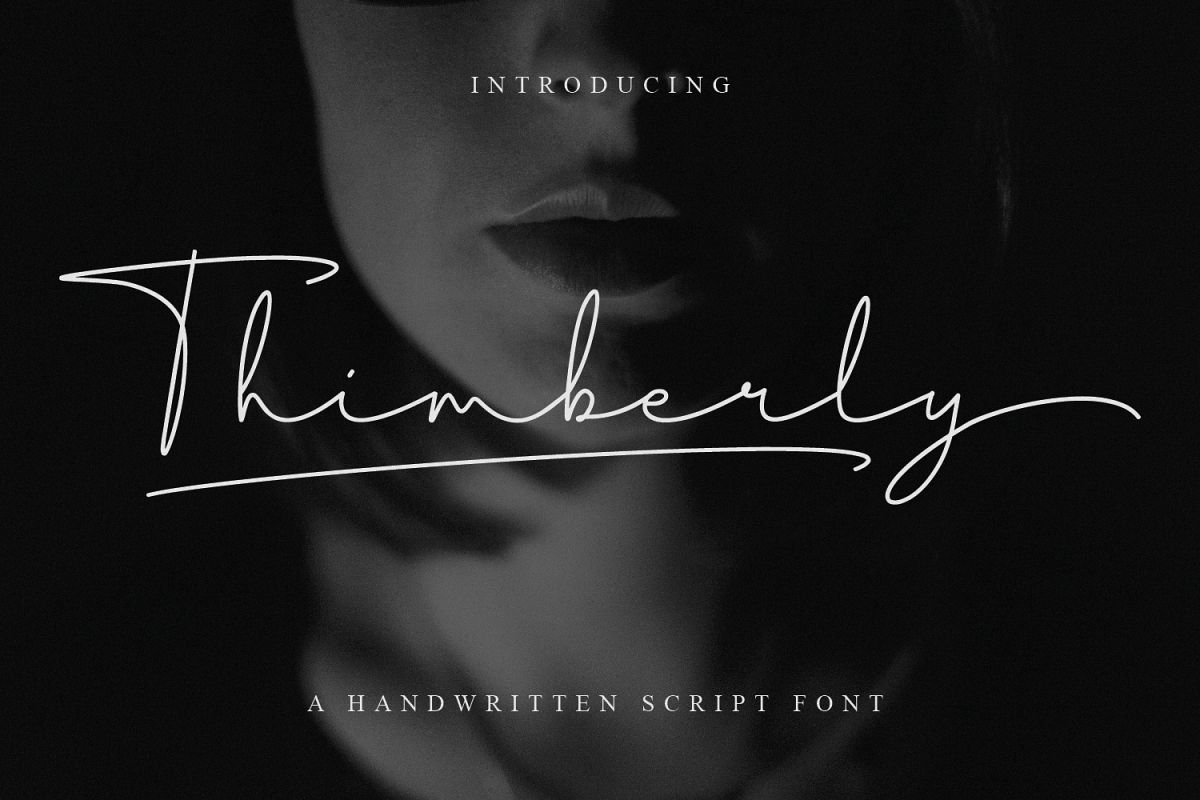
Thimberly
Thimberly is a modern and awesome handwriting font with extraordinary charm. This will change any design idea to be beautiful and perfect! Can be used as a logo, branding, or just writing. It supports multilingual languages, which you can combine into great designs.